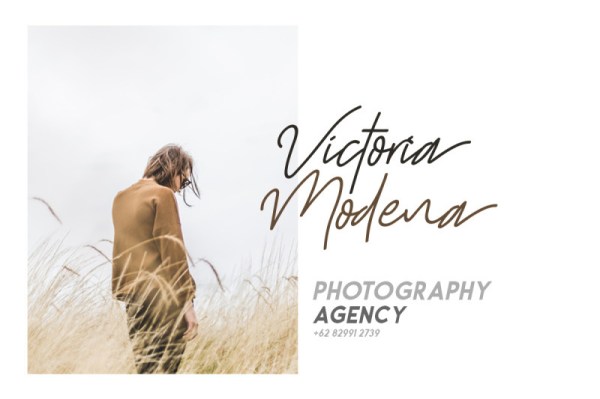
Freebie Wednesday: Big Reputation Font Duo.
Introducing this week’s freebie: Big Reputation Font Duo! Comprises of 2 best selling fonts brought to you by Saridezra. You can create bold designs for logos, t-shirts, labels and more! These fonts contain multilingual support and are fully PUA encoded!